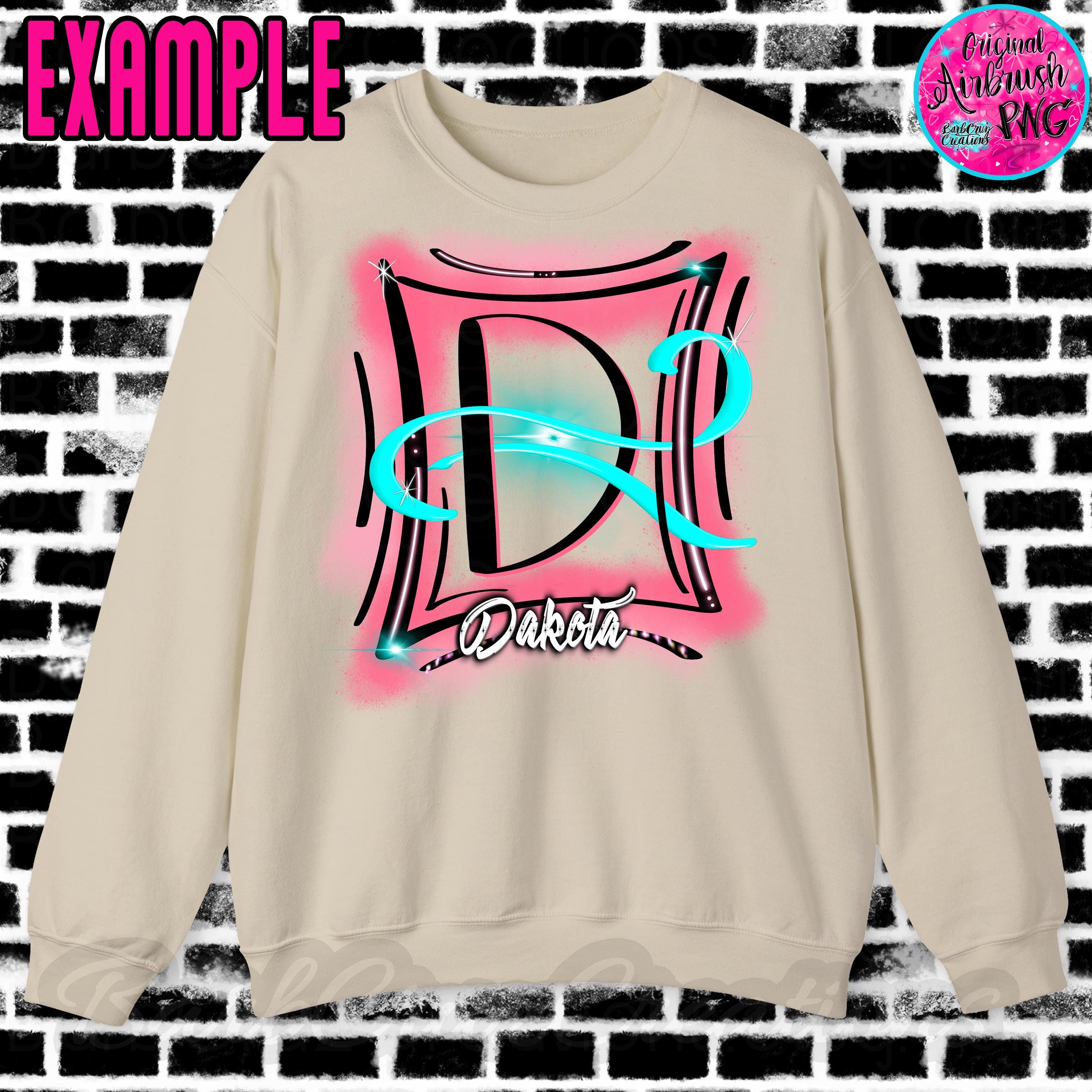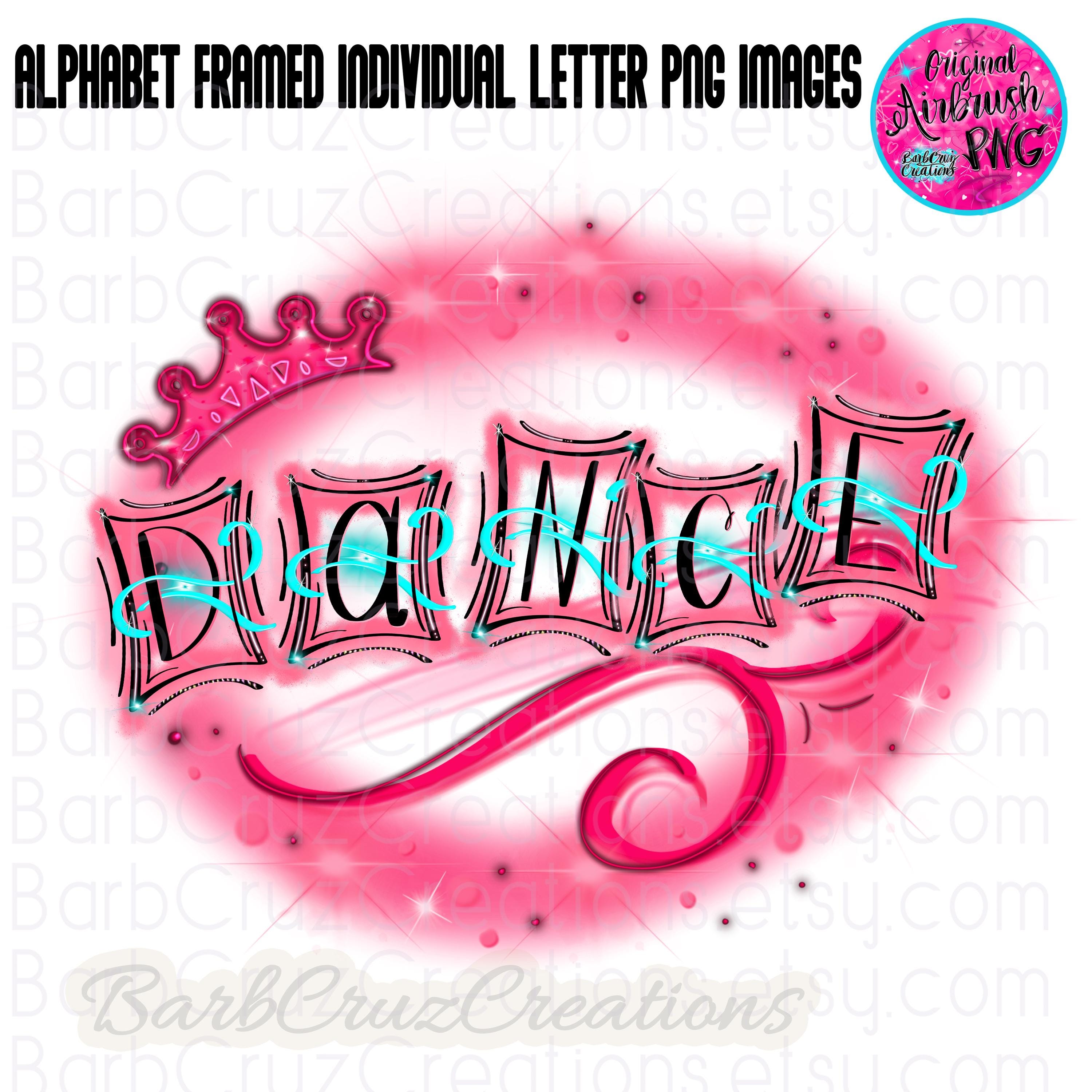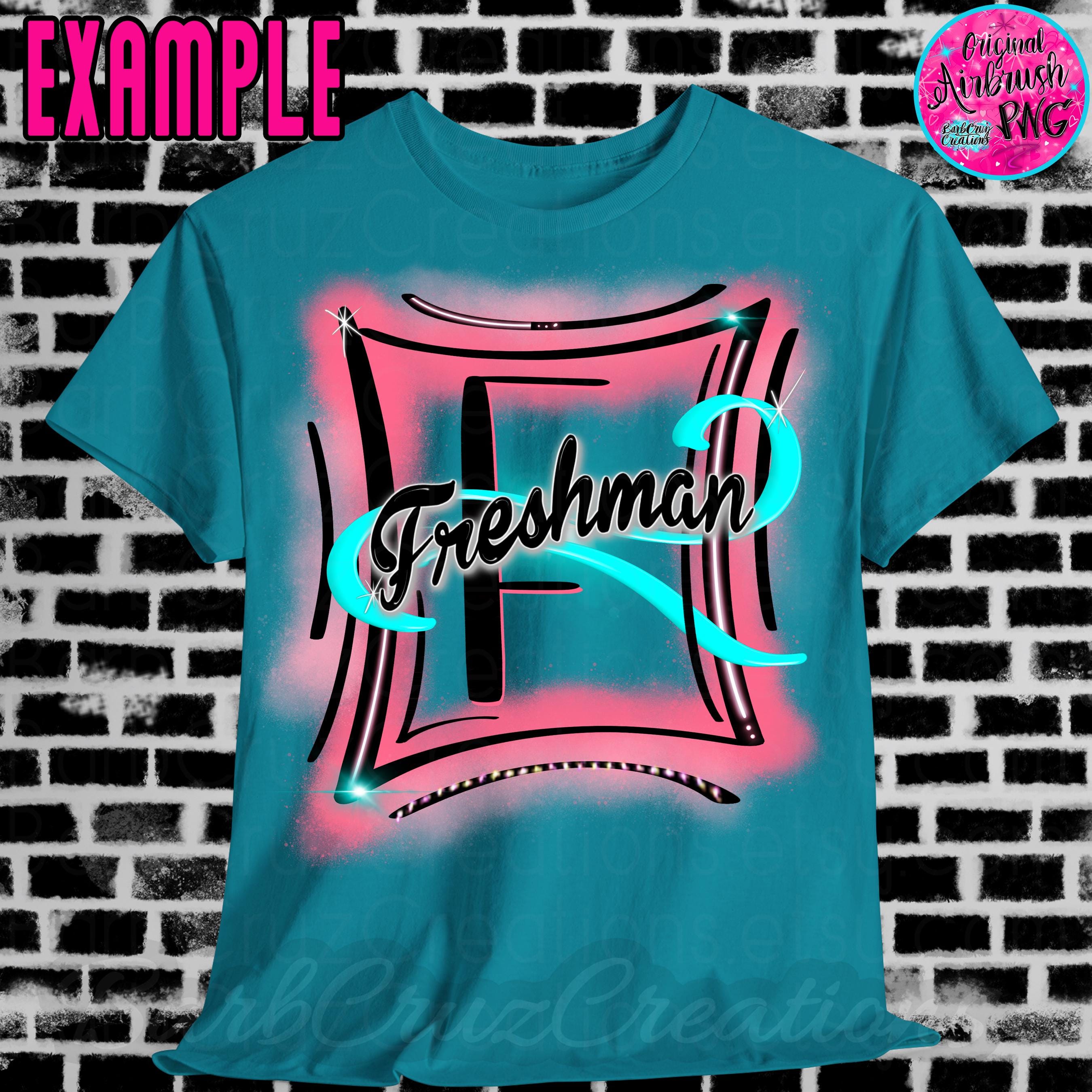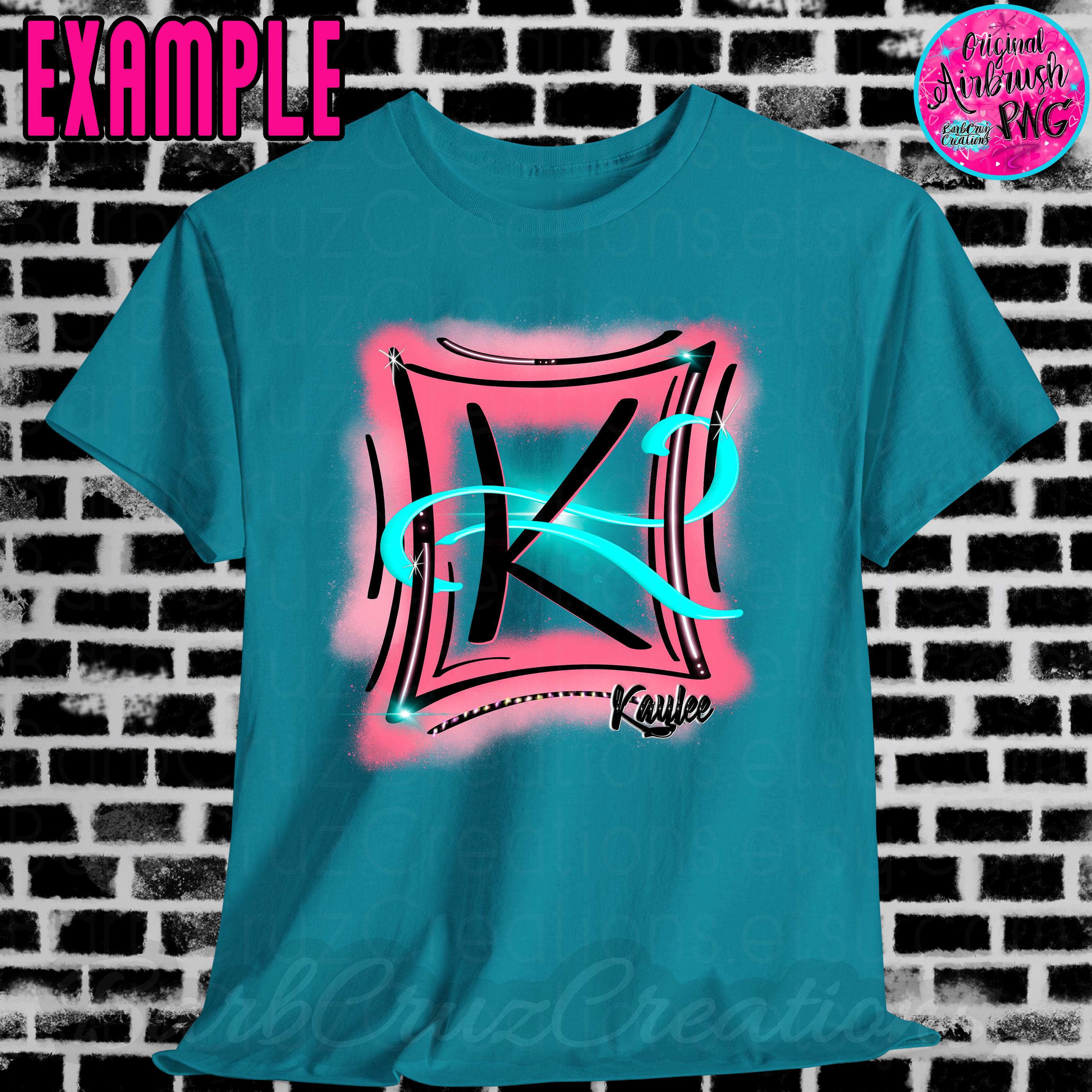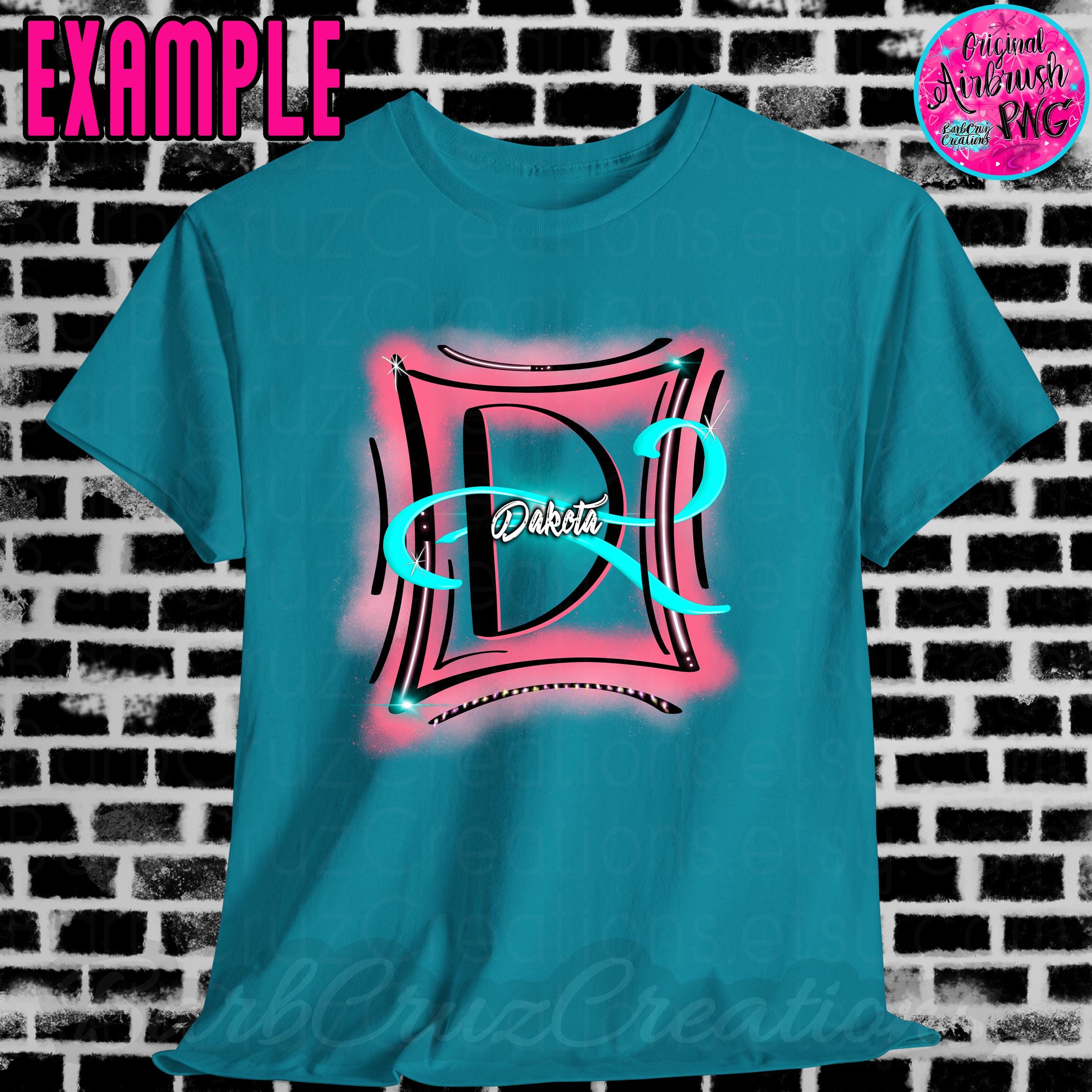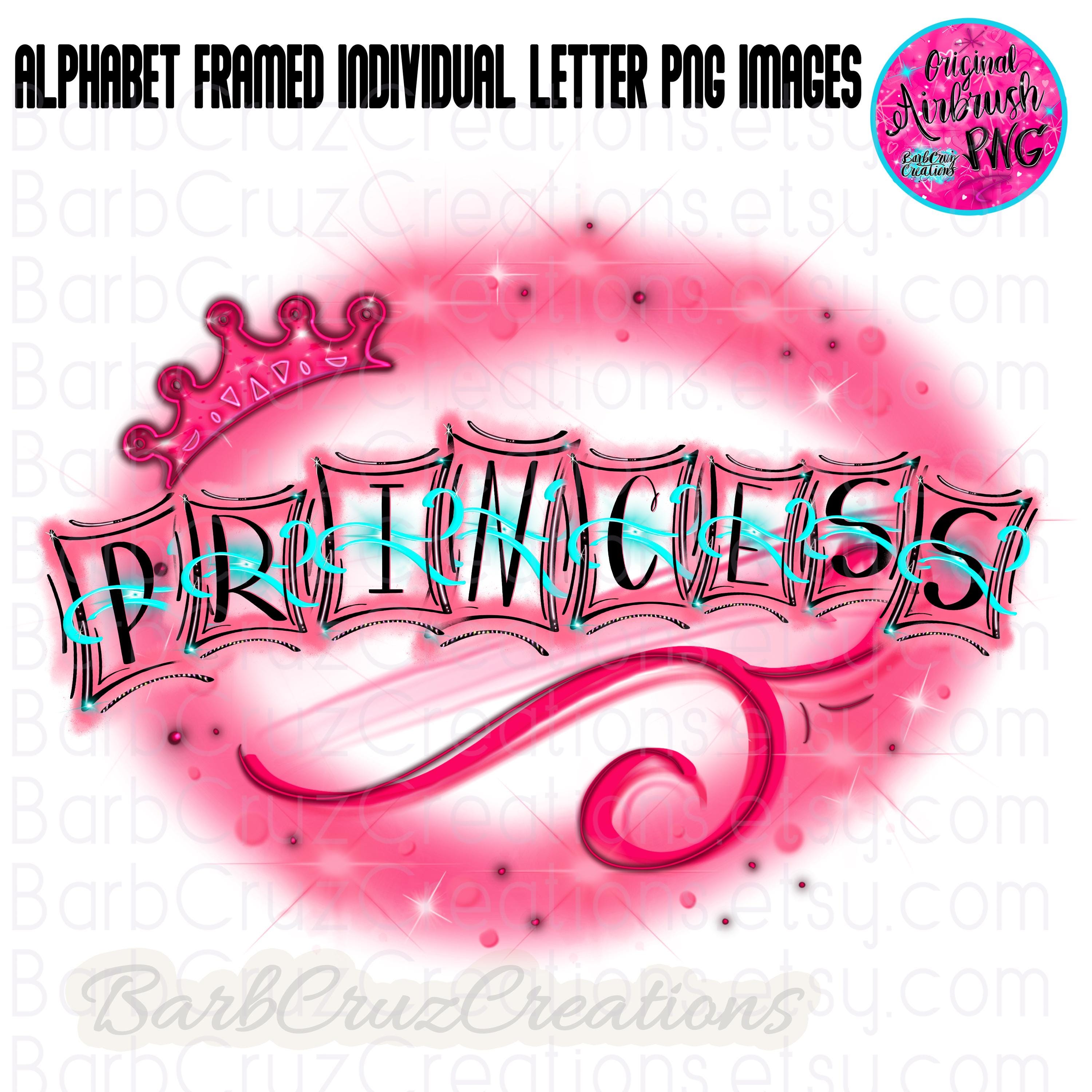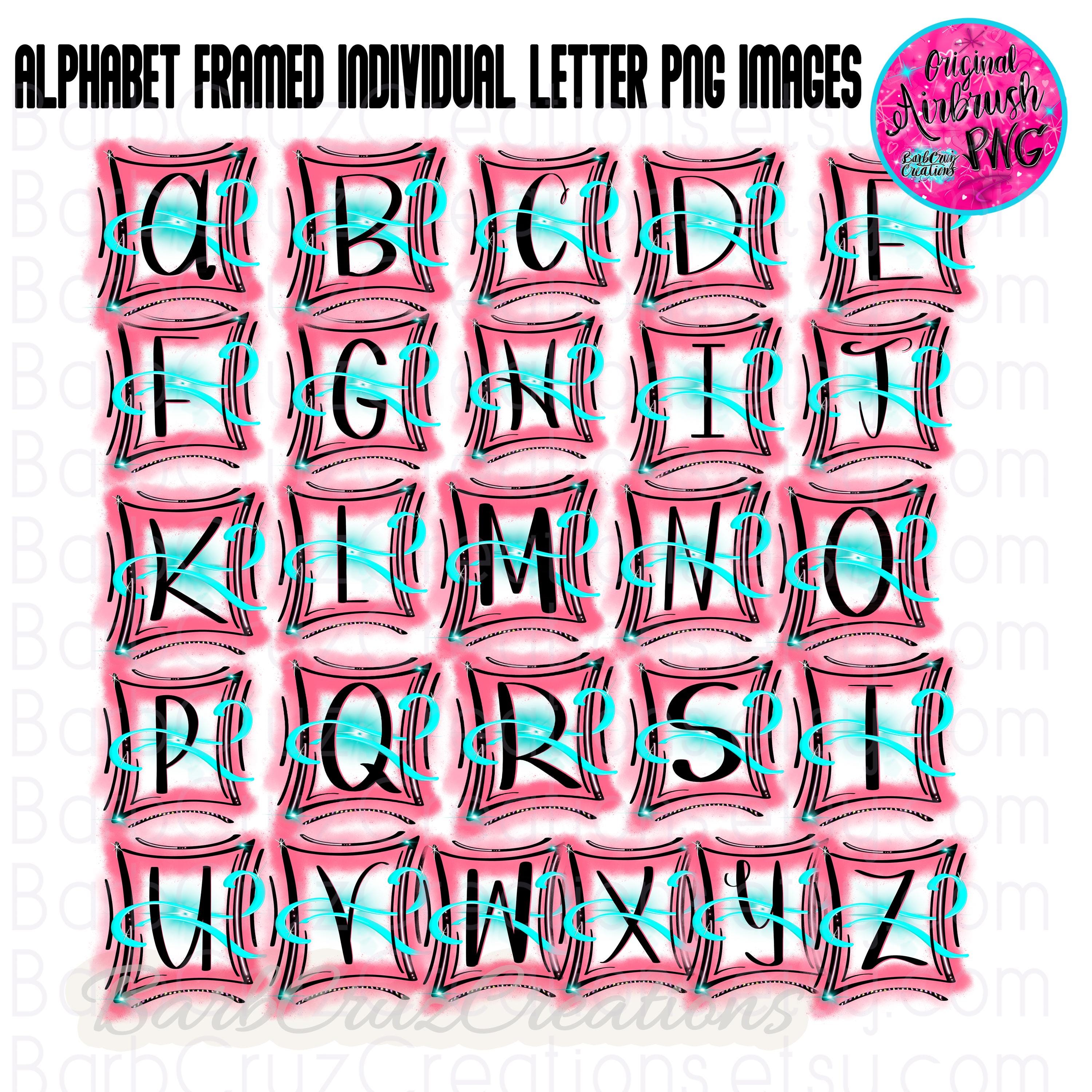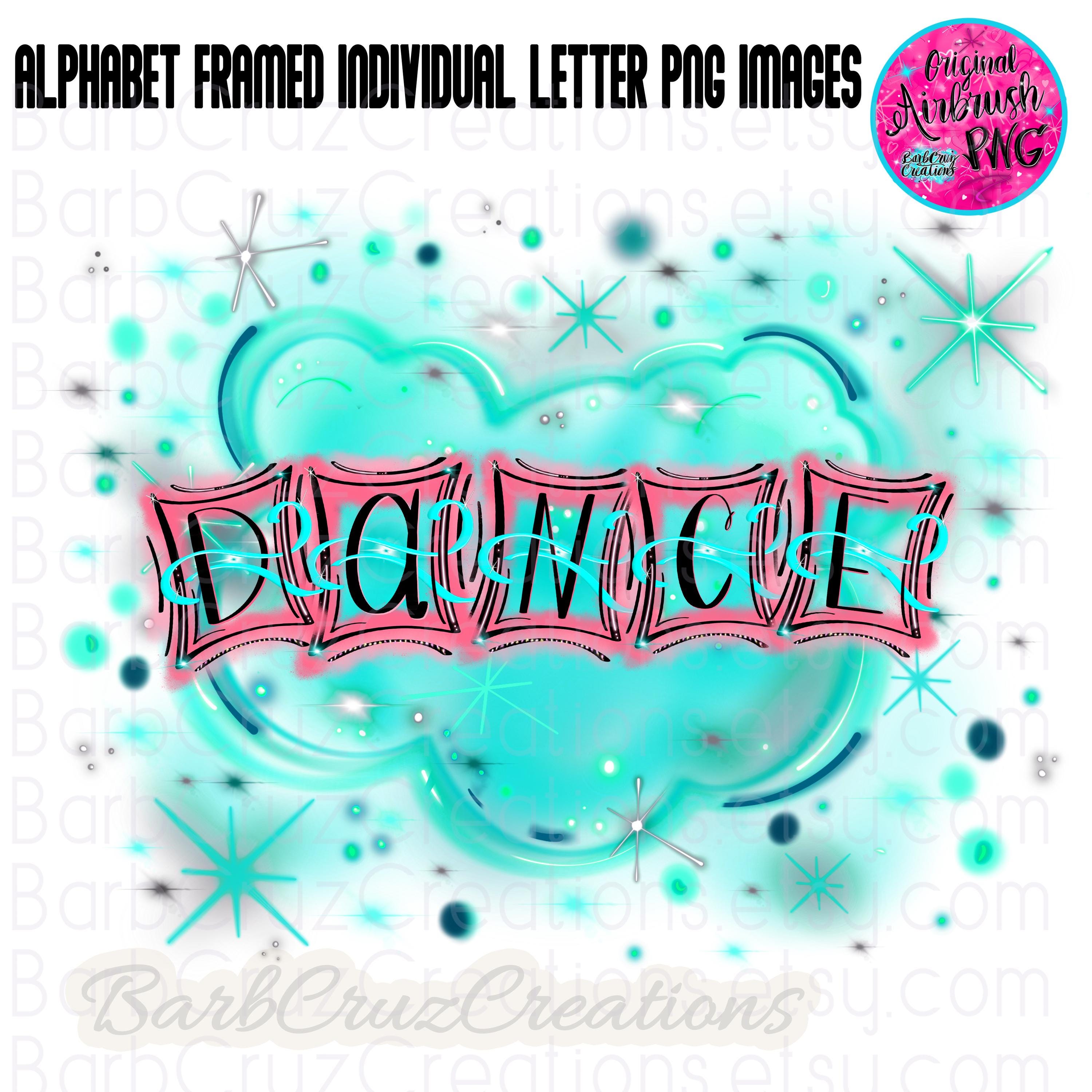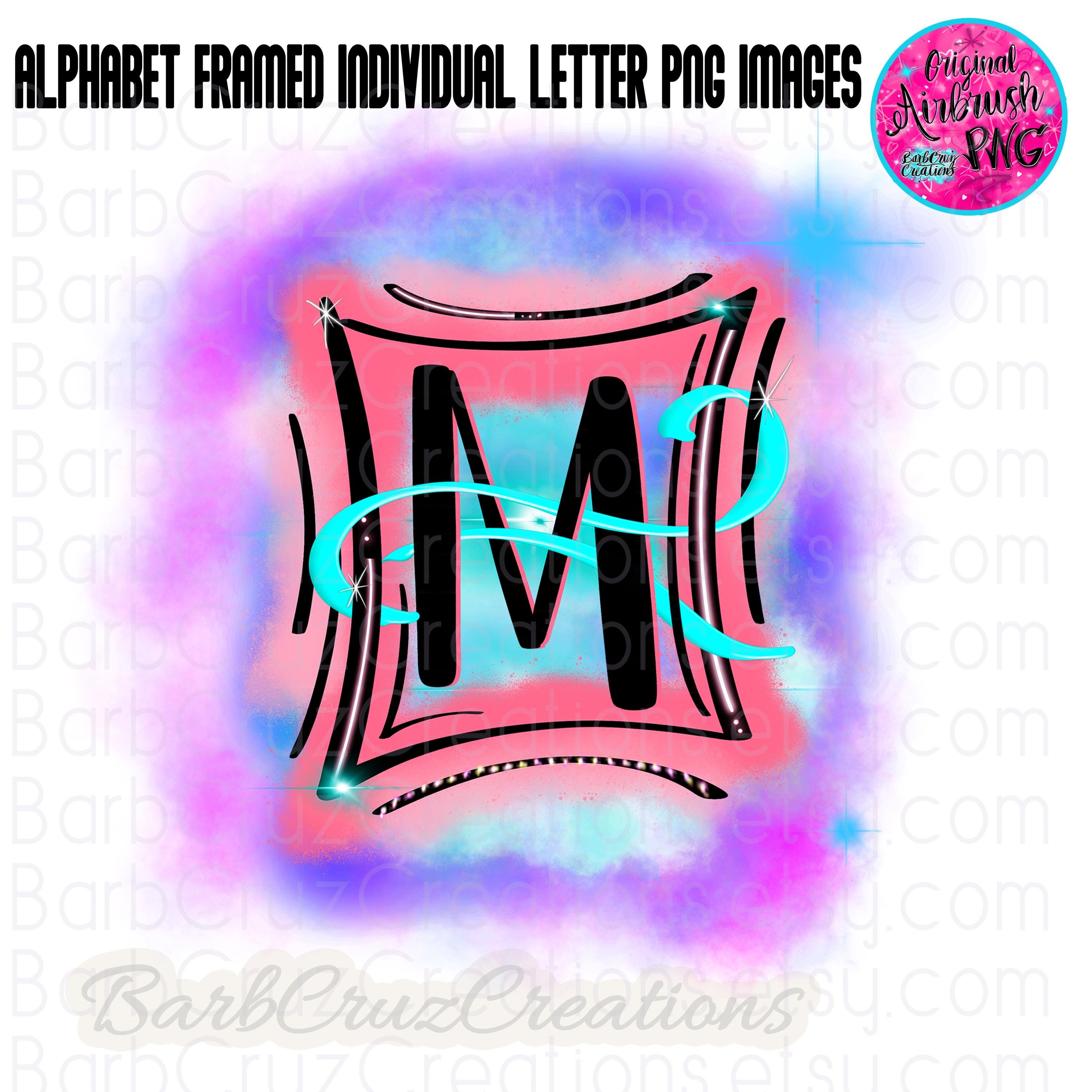
Airbrush Font, Graffiti Letters, Airbrushed framed Lettering Images, Alphabet Font, Sublimation, Capital, Hip Hop Font, Hand Draw Lettering
Airbrush Alphabet Letter Individual Images on a zip file as png's - Pinkish & Teal Airbrushed framed png images for you to arrange words or use as monograms in your own design program. Blue Airbrushed Graffiti brick wall included. PNG Digital Downloads
*You are purchasing the whole Alphabet Upper & Lower case cursive Letters as individual images in a Zip files in png format. Create your words by adjusting/aligning each image next to each letter needed. You can tilt, curve, enlarge, or make smaller for a fun twist.
Add to a background use for airbrush monogram, a personal message, name, image to make a custom design in your design program.
Watercolor & Airbrush Images are transparent in some spots and can be layered to achieve darker or brighter images. Use your copy and paste feature for desired brightness.